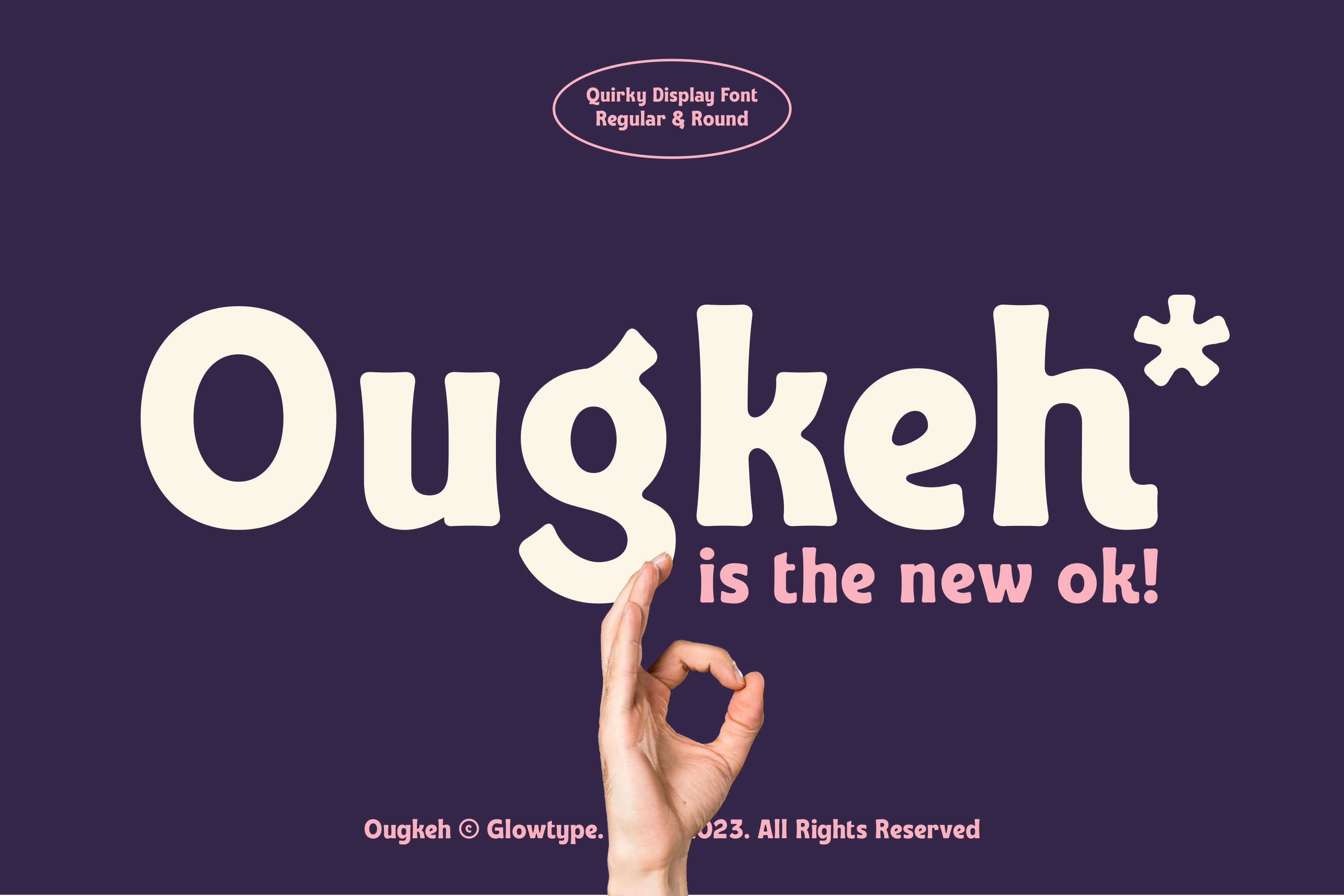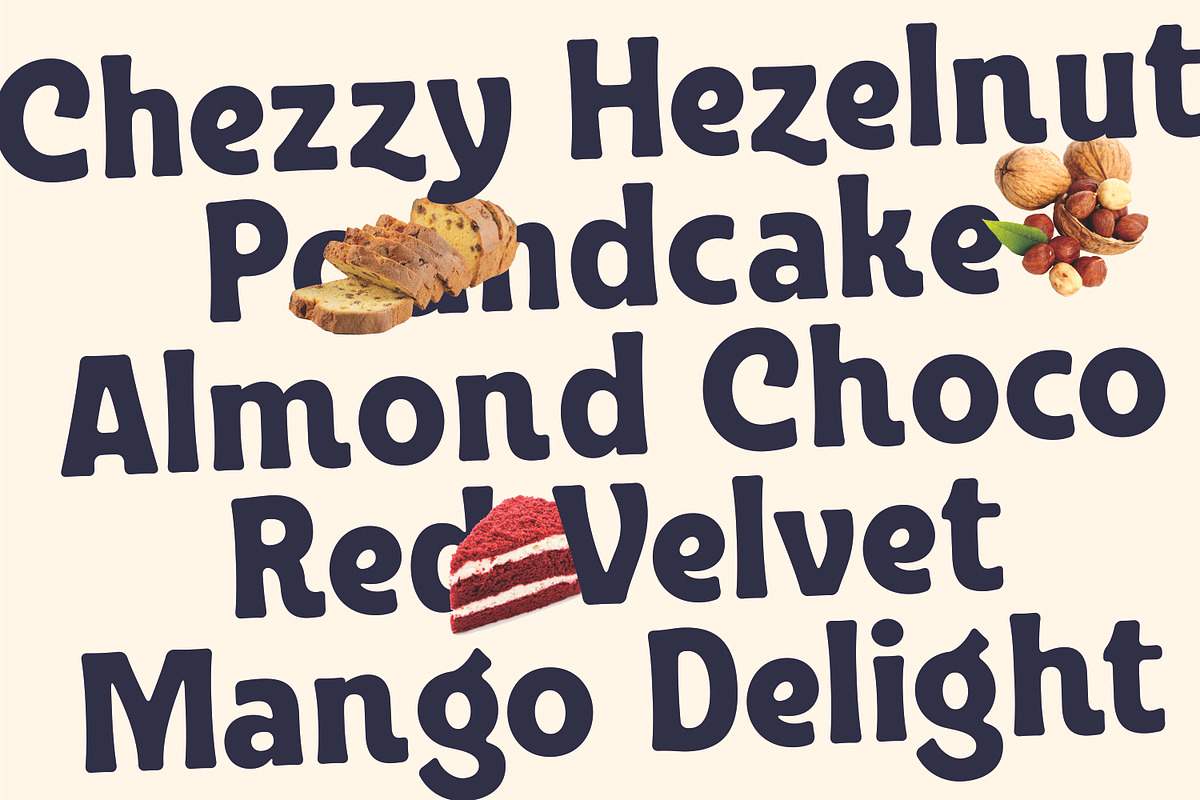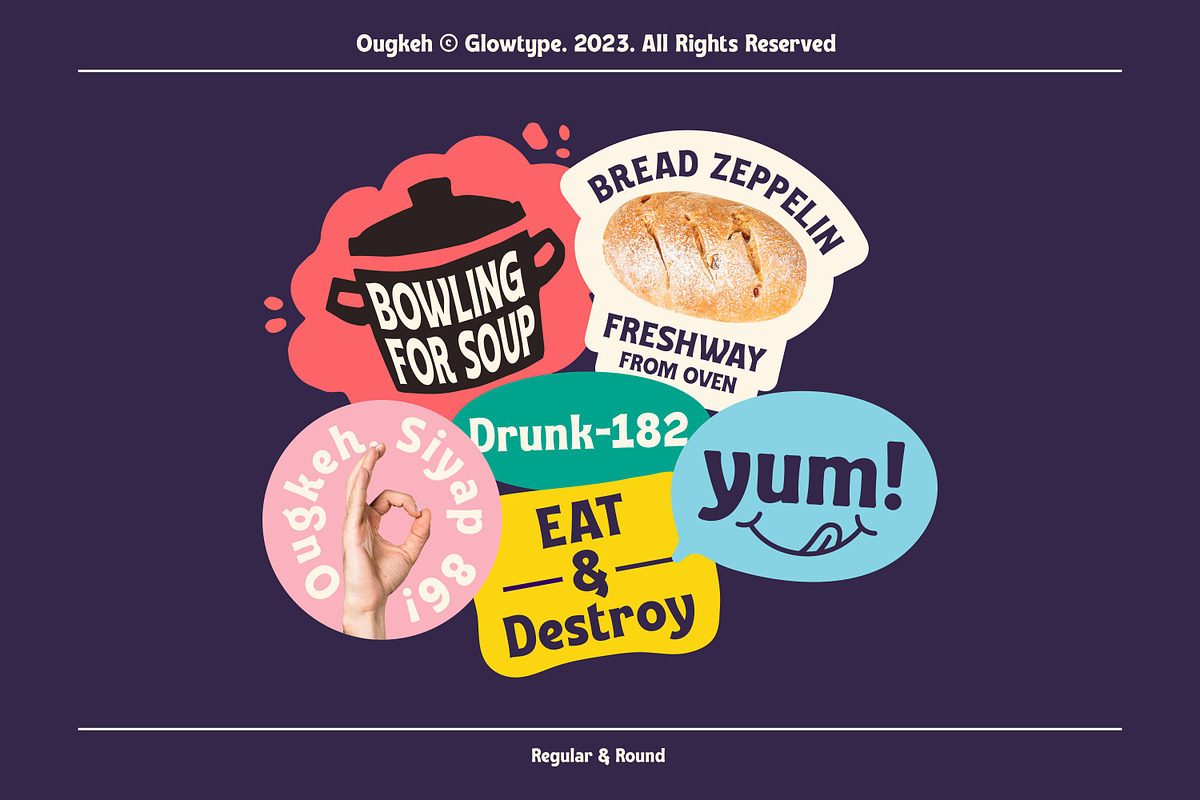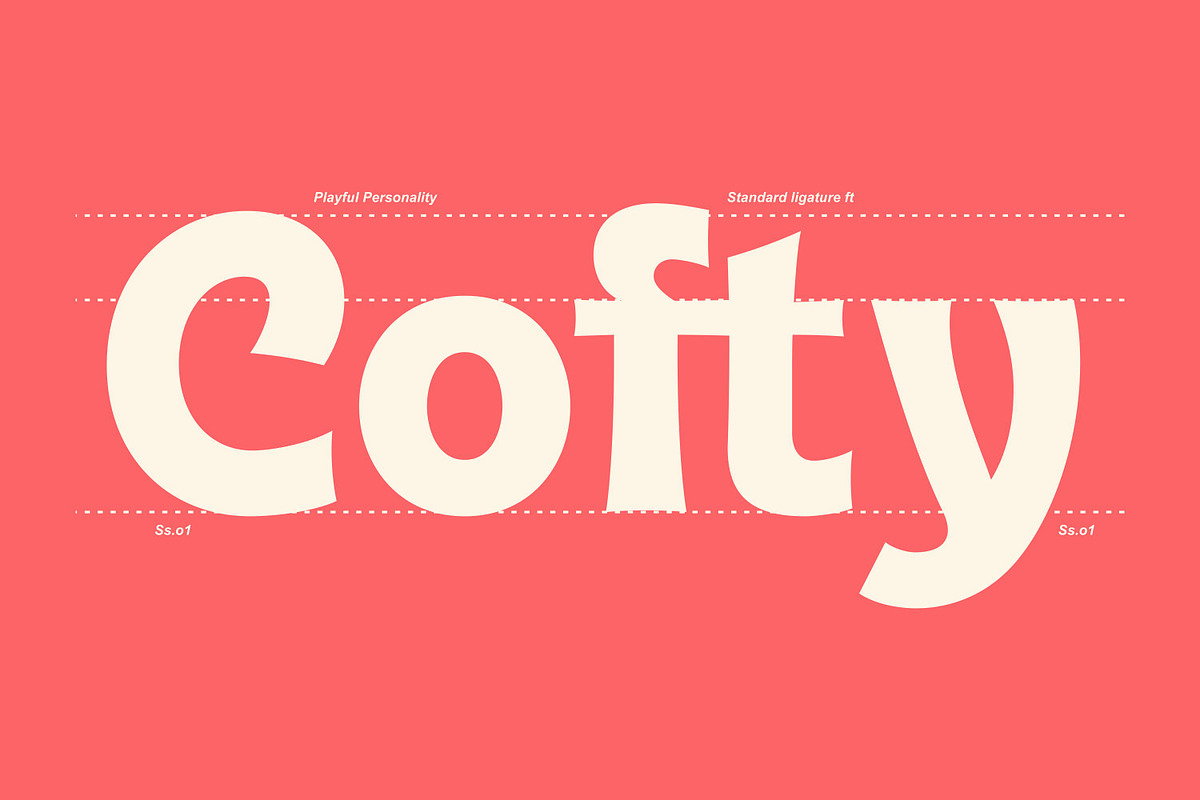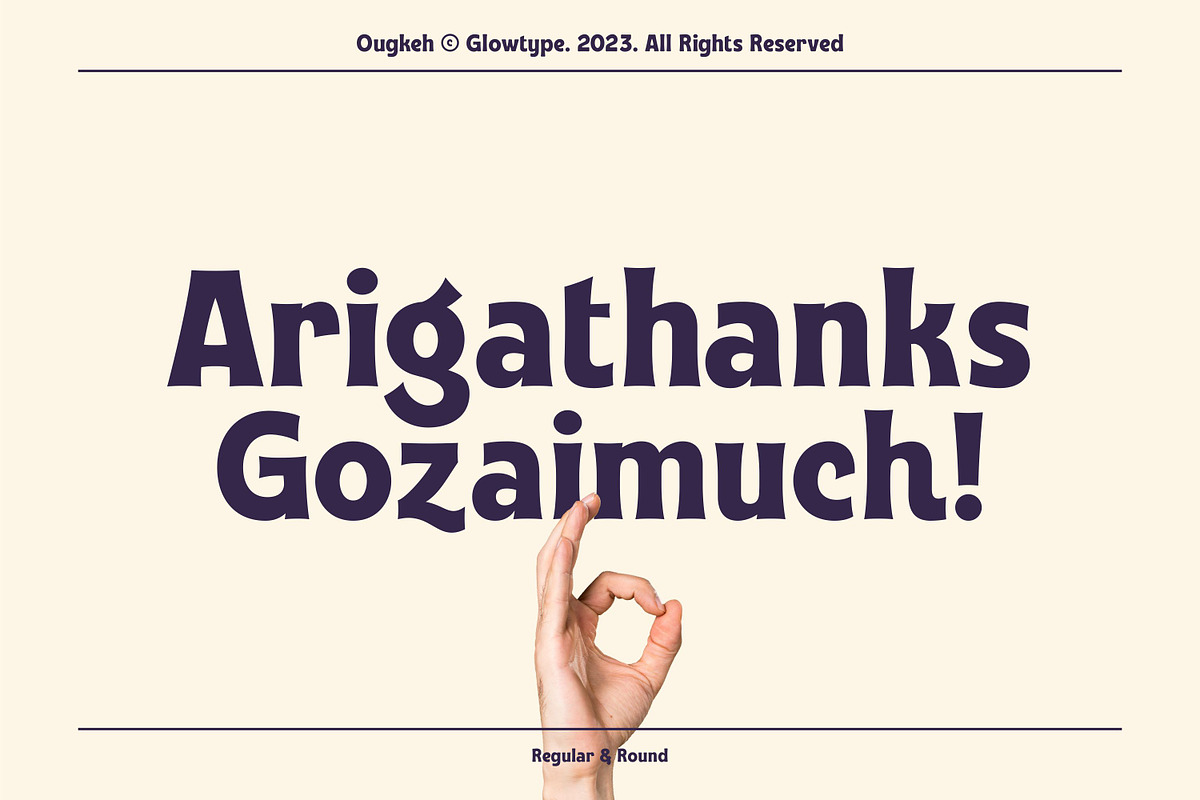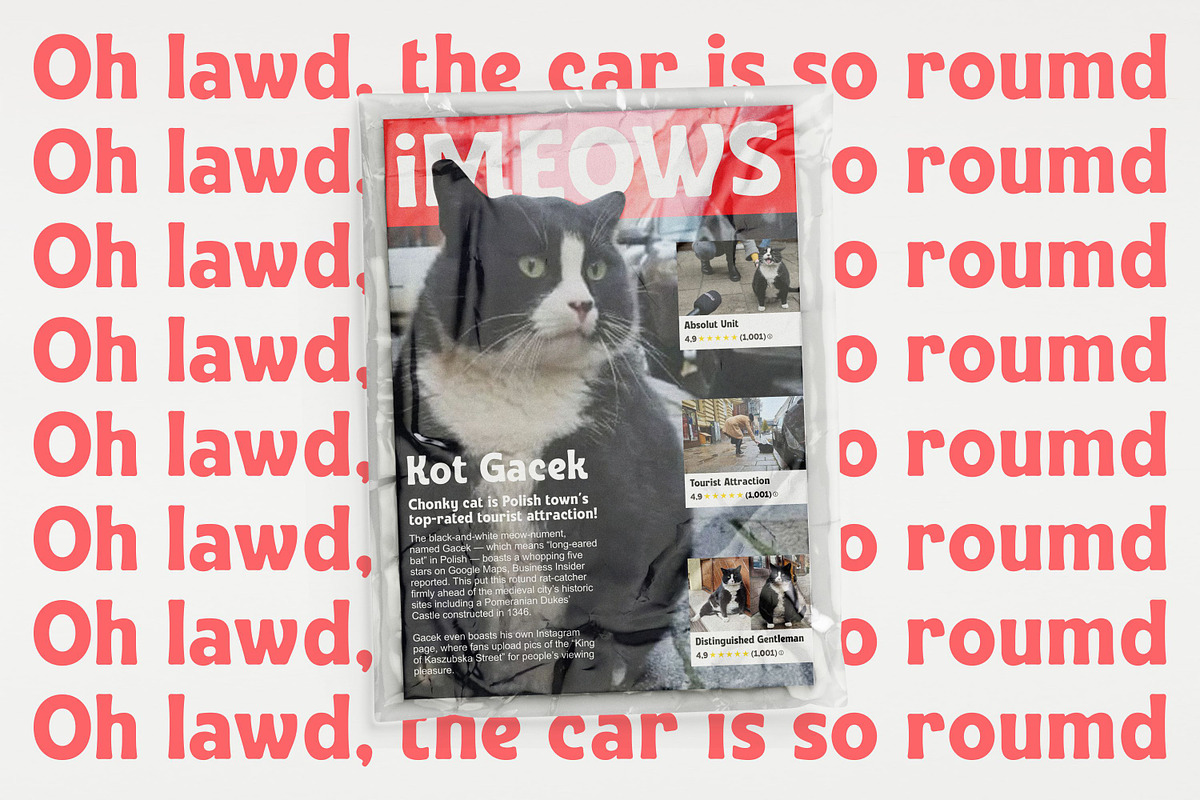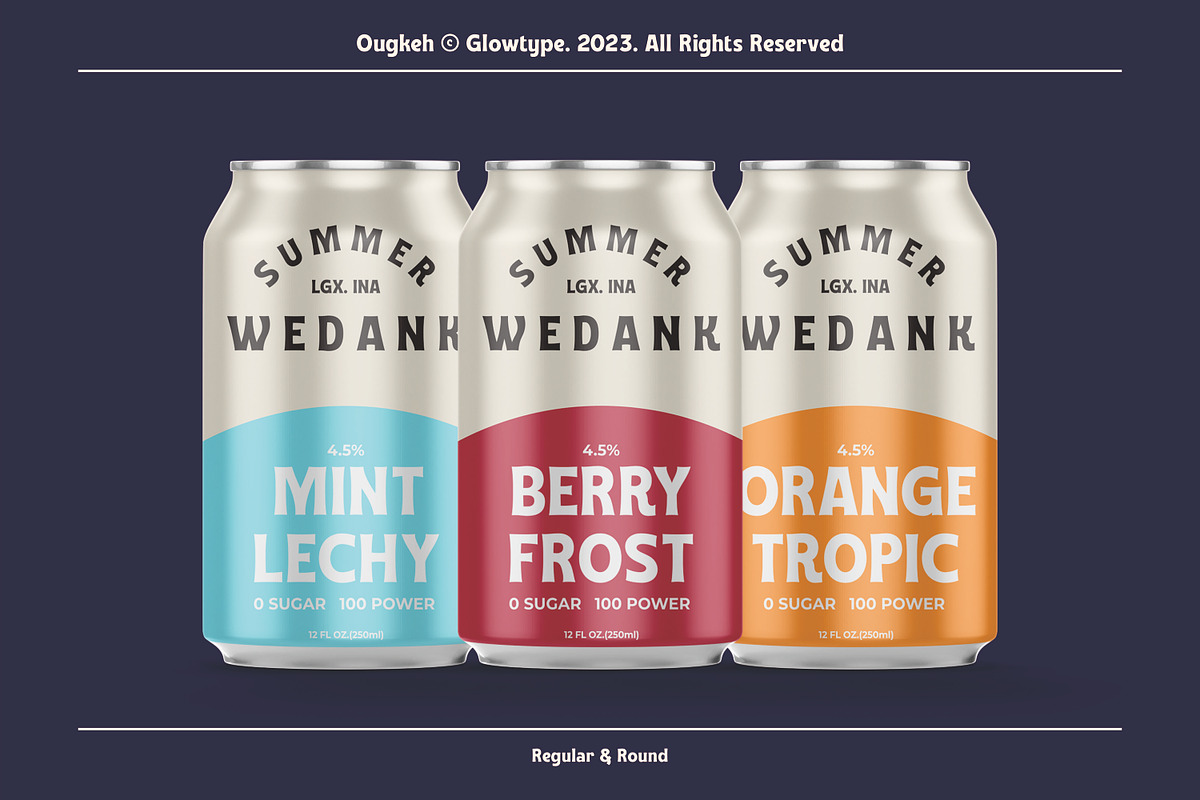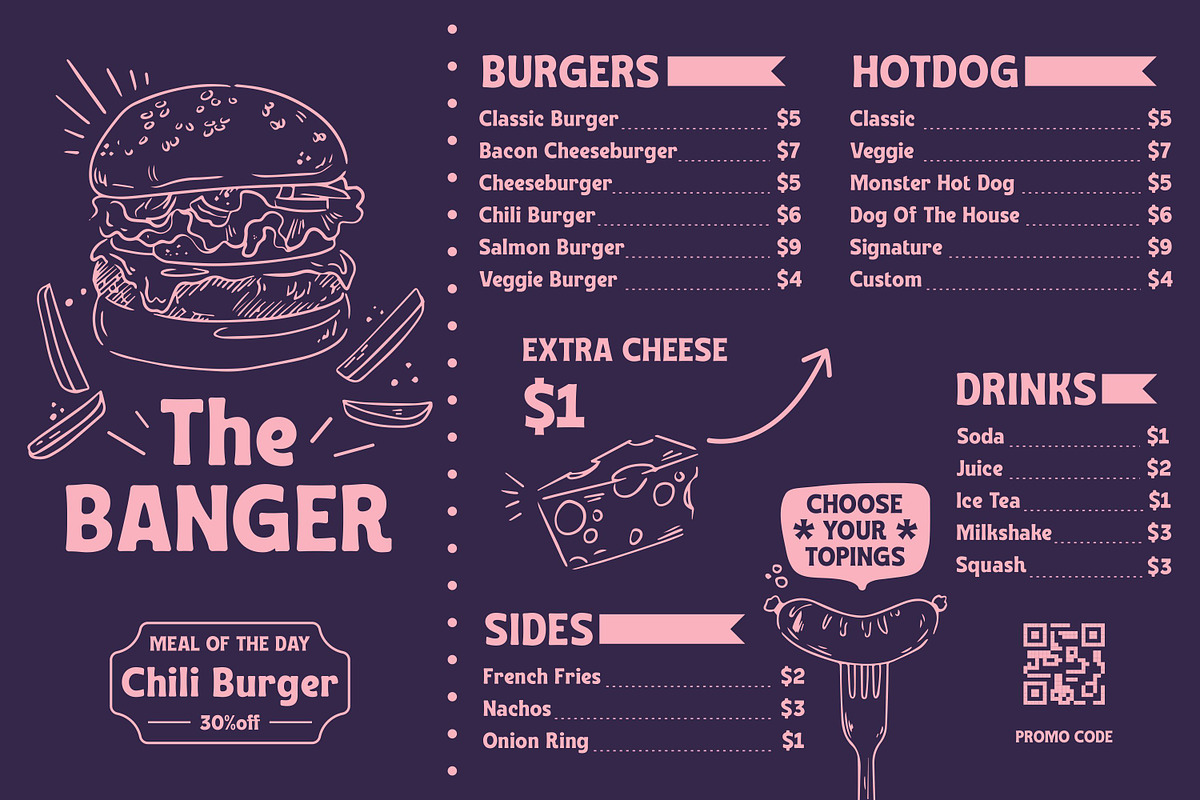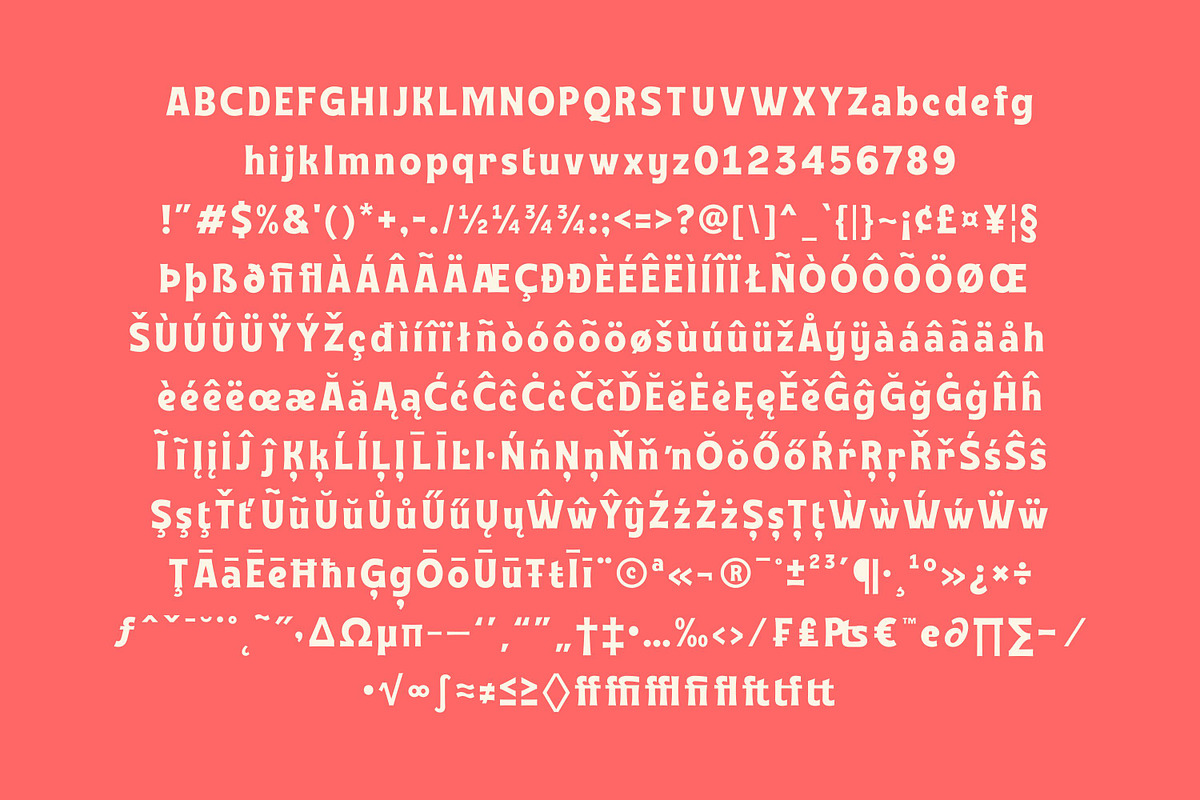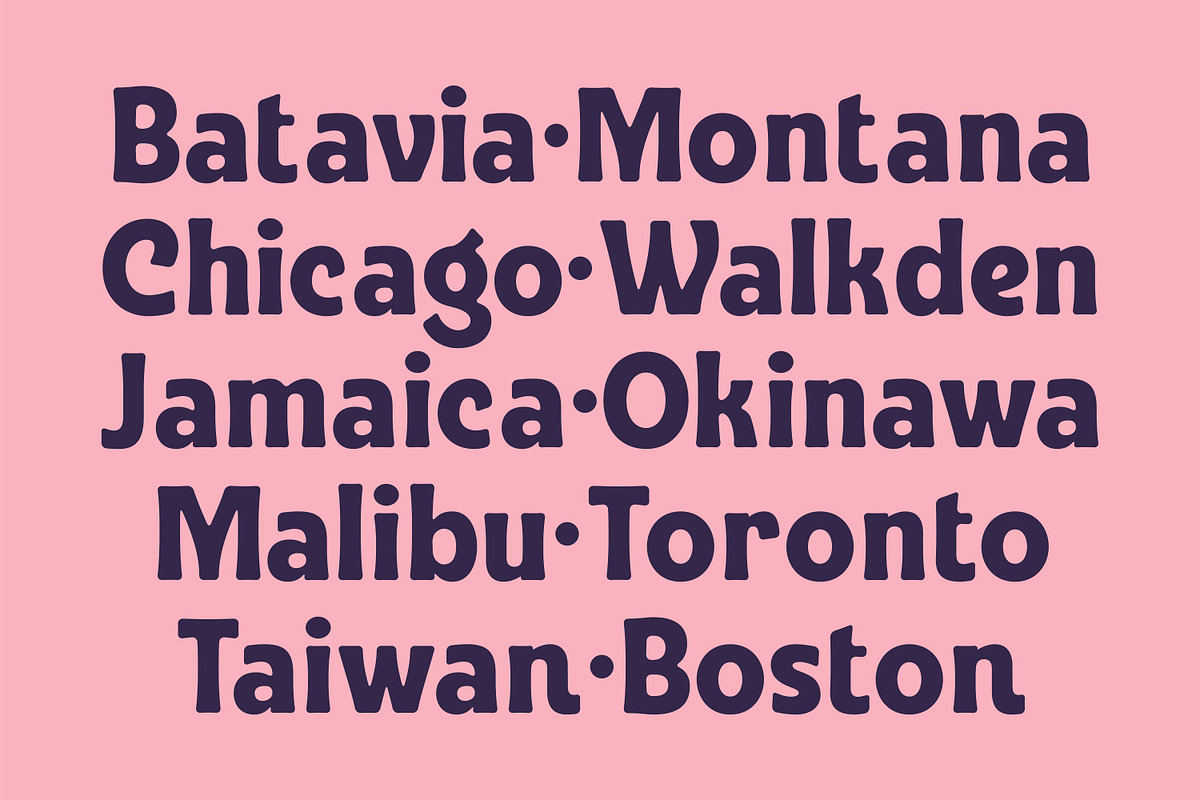
Ougkeh Typeface
Introducing my second work. I am proud to introduce Ougkeh, yes ougkeh is the slankword for ok!
Ougkeh is a quirky font with a playful style gives a delicious and cheerful feel. With thick strokes and two styles, namely regular and round, of course Ougkeh is the perfect choice for all types of branding, whether it's a food business, fashion, magazine or any other type of branding.